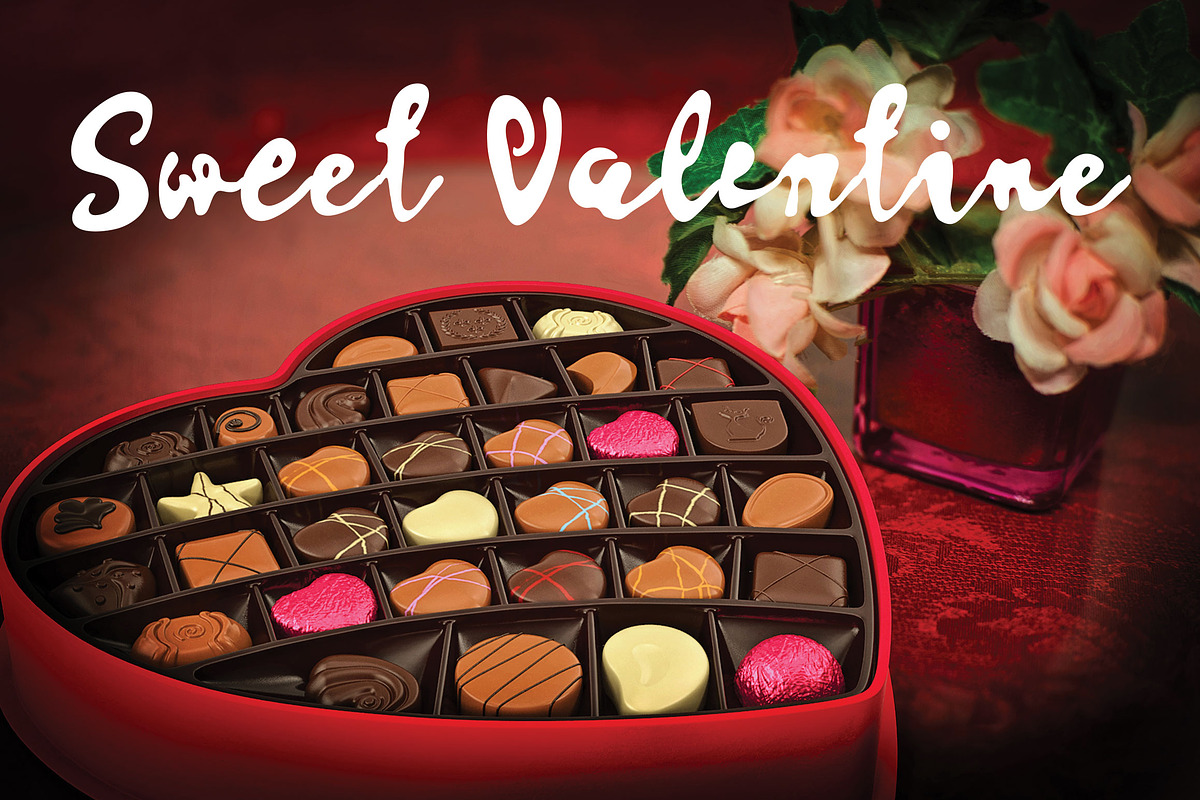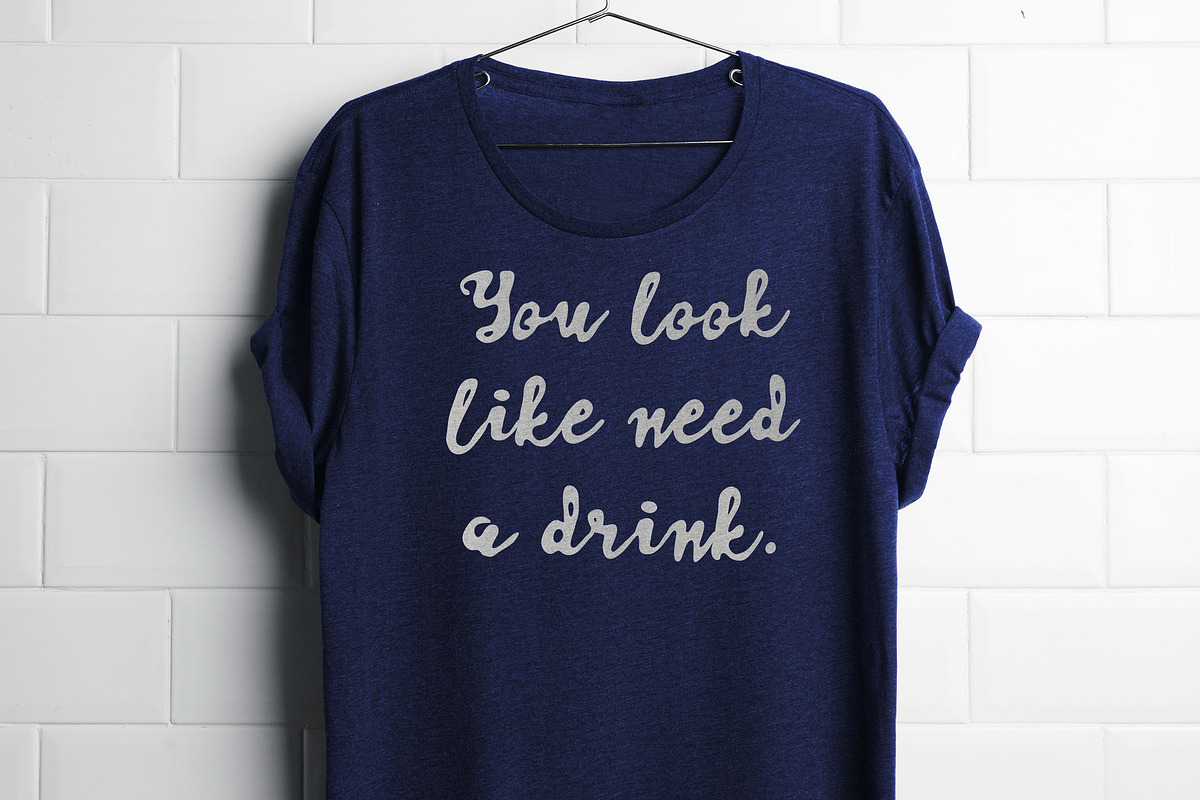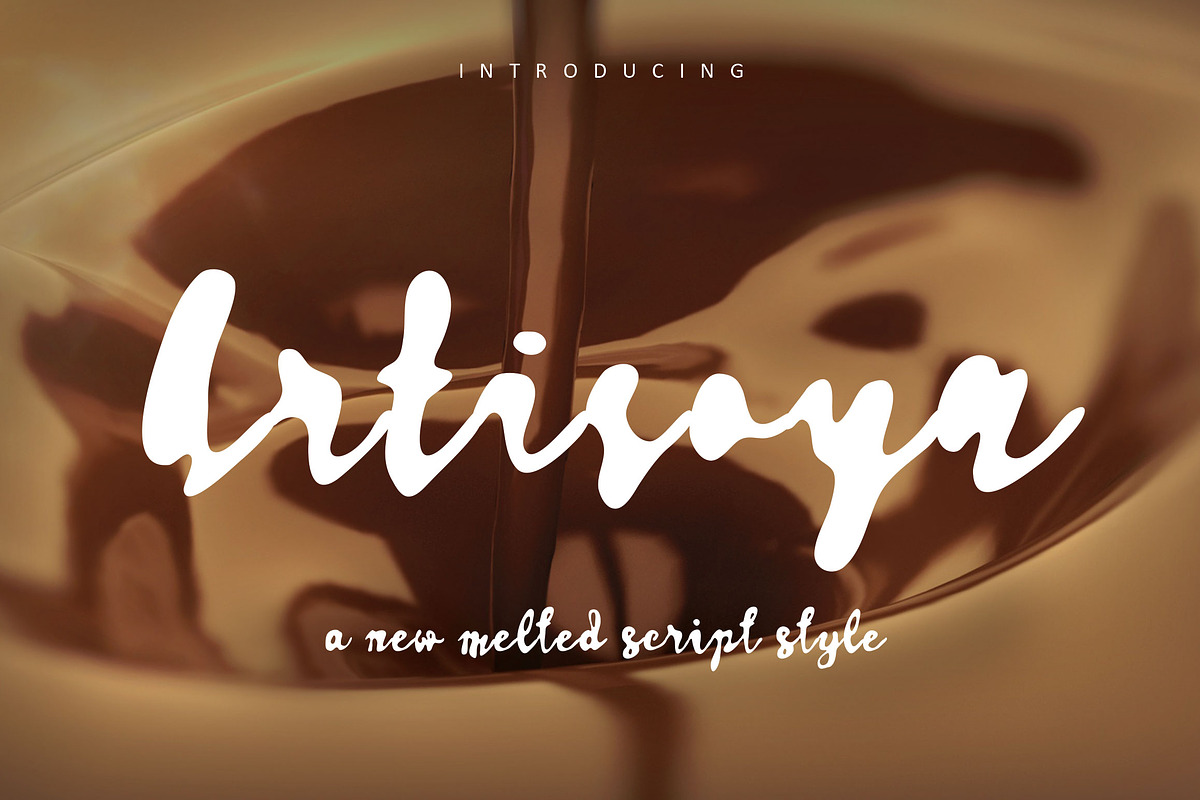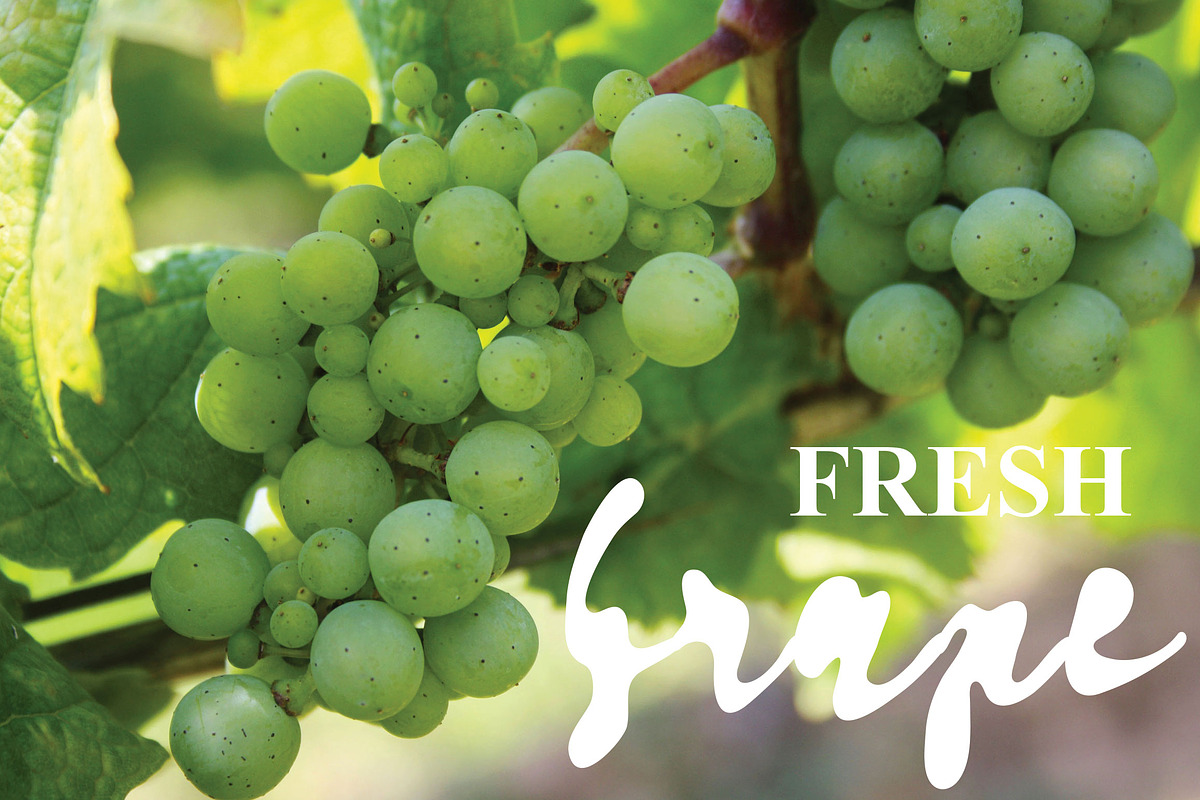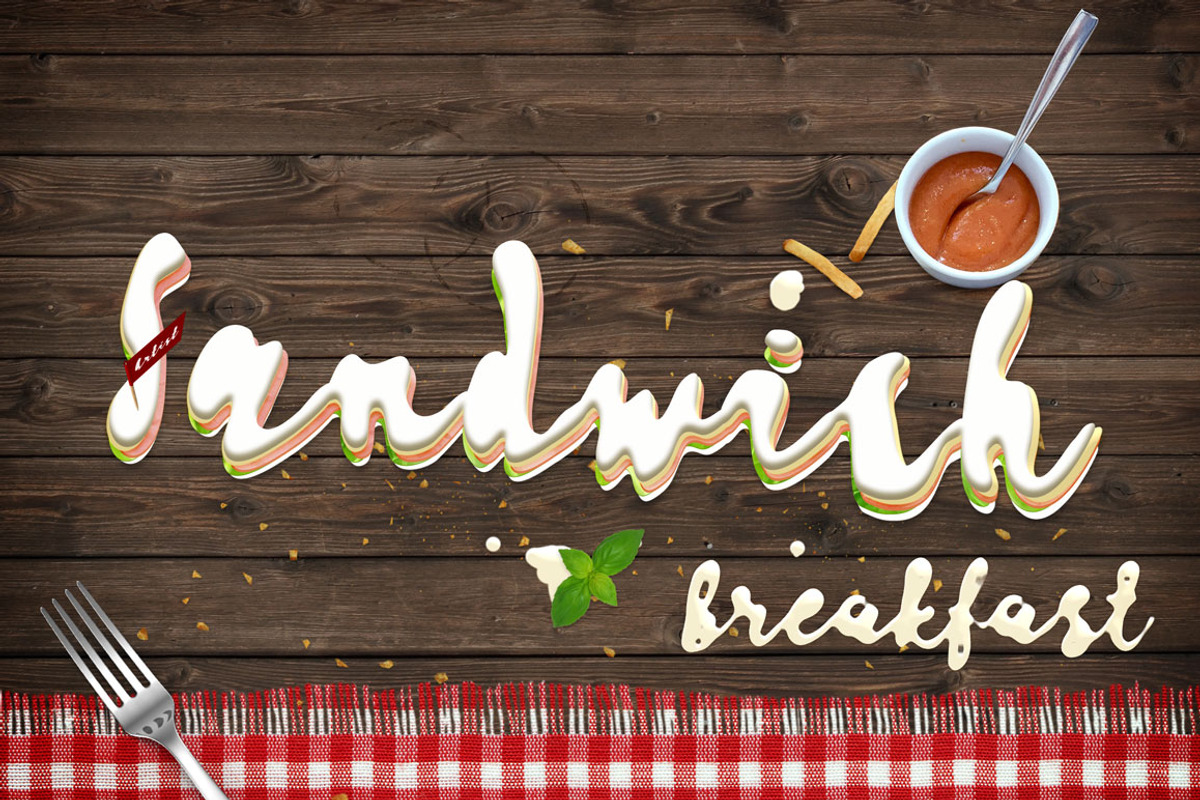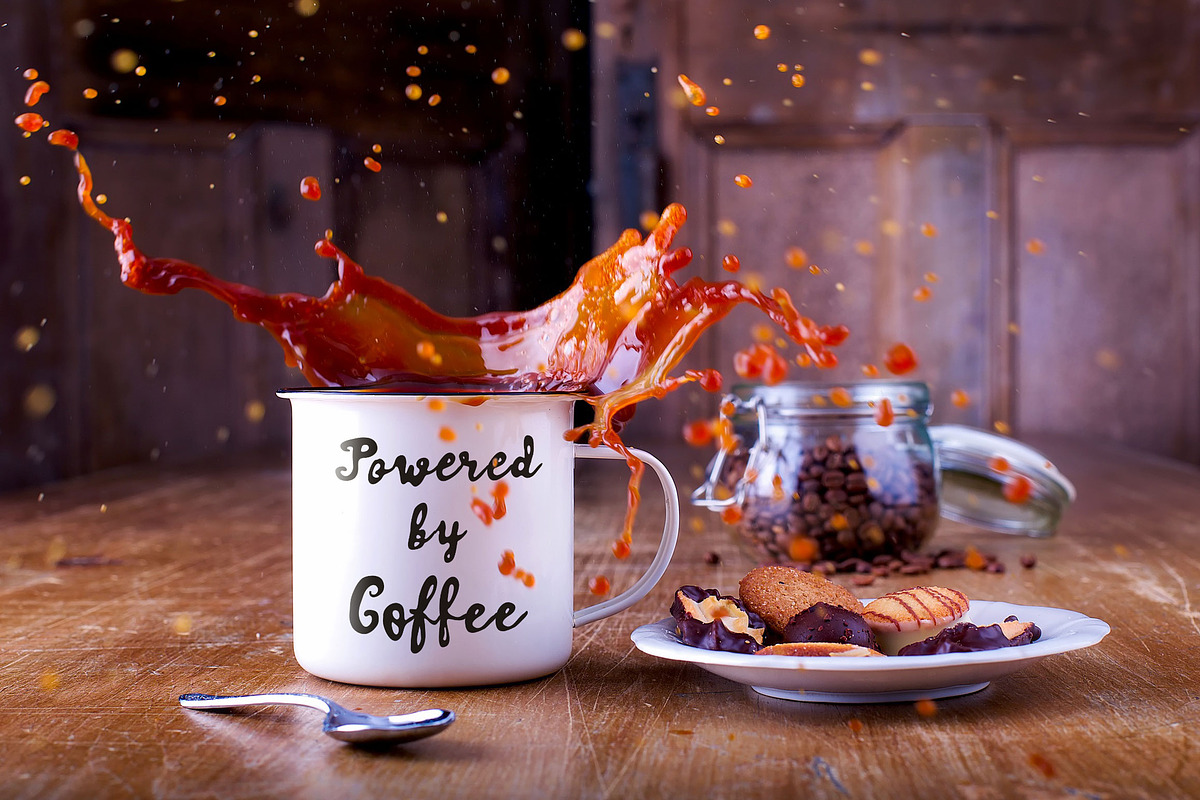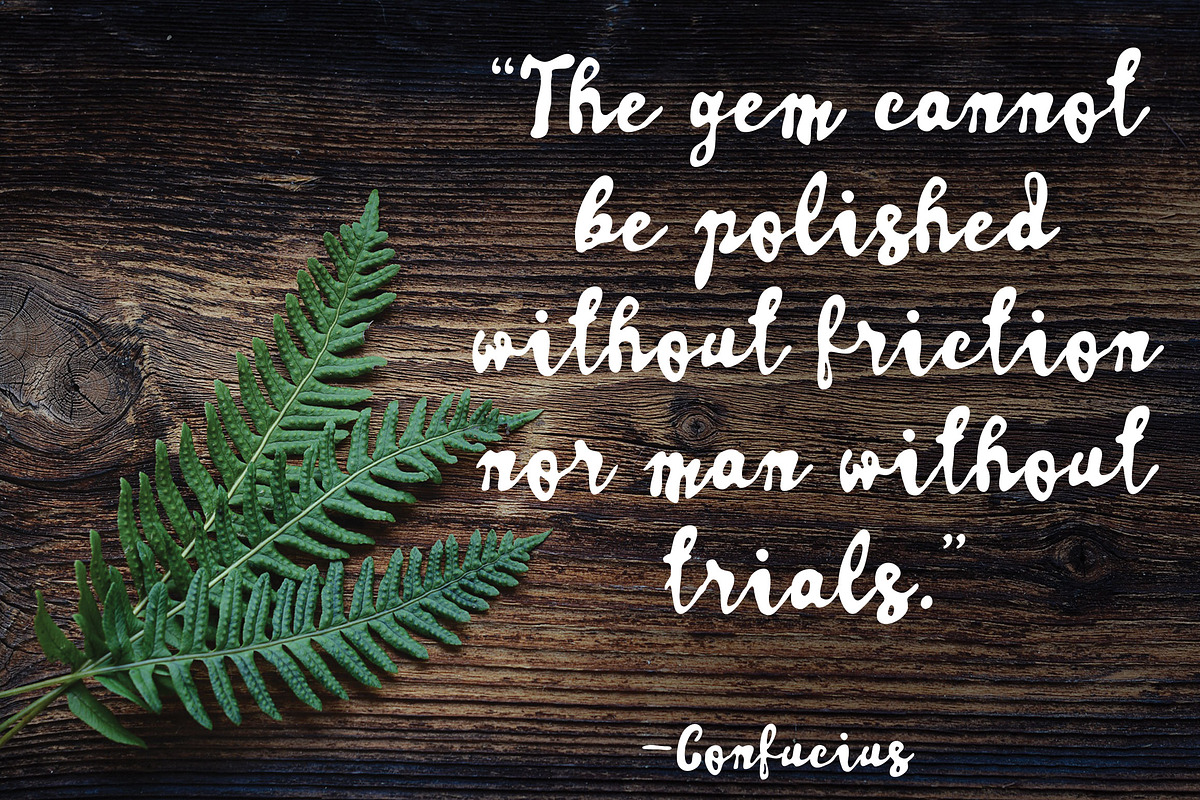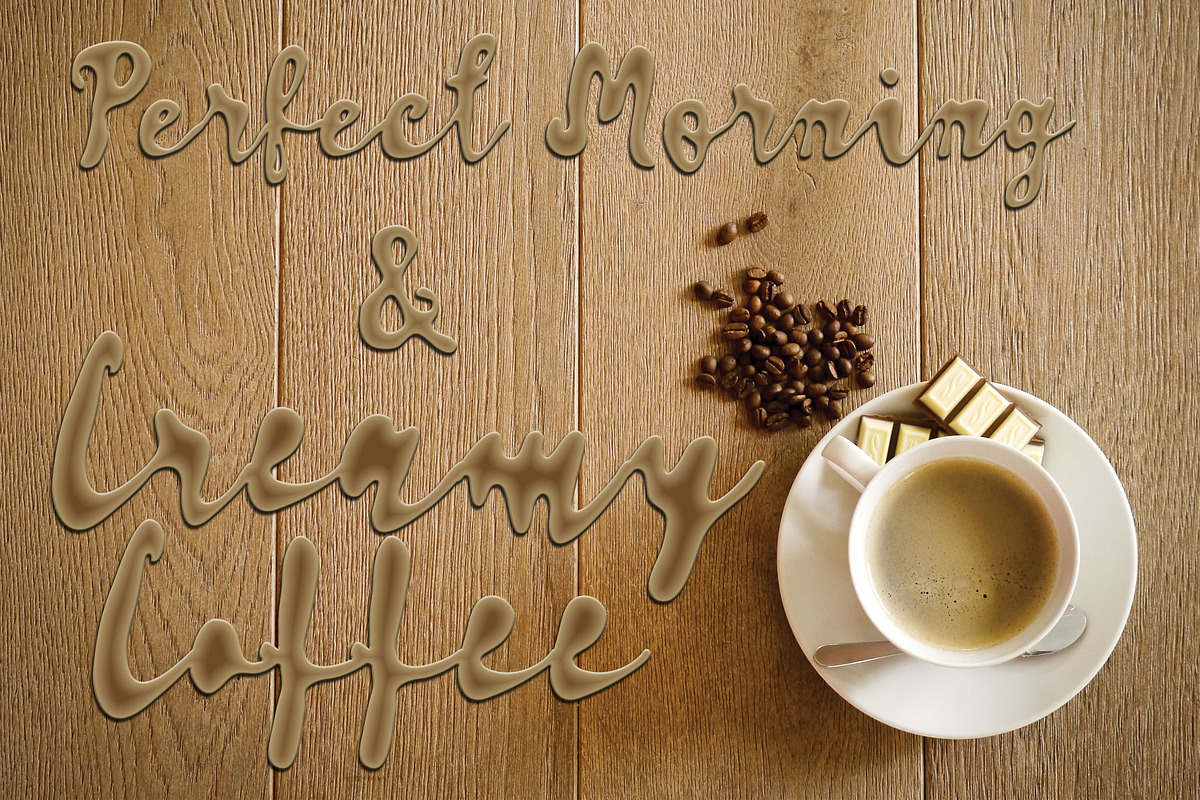
Artisoya Script | Font Trio
Say Hello to Artisoya Script, a new unique cool modern art of melted/over wet brush script. This font will so nice for food theme, beverages, chocolate, coffee, wine, funny, humor, comic, etc. Artisoya Script also have 2 alternate style to gain more natural look. With the first melted style script font created ever, your design will nicely stand up from the crowd.
2 Alternate for each lowercase and uppercase characters.
Contain 427 glyphs and supported to basic Latin character and eastern Europe language.